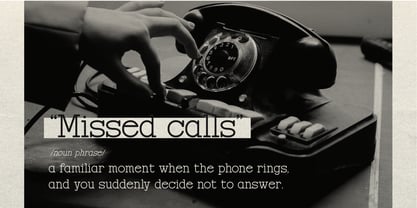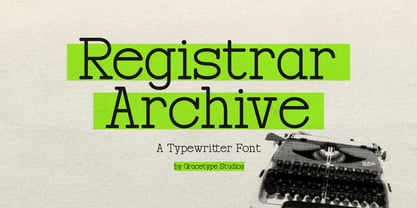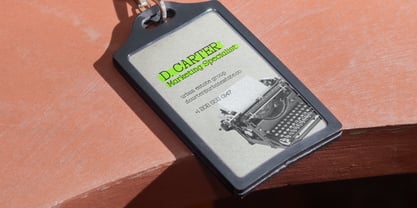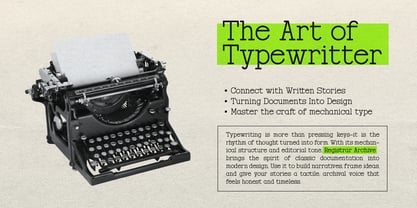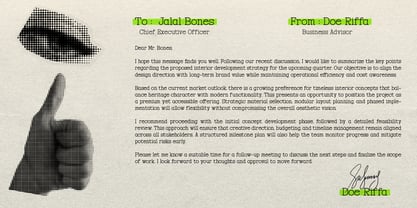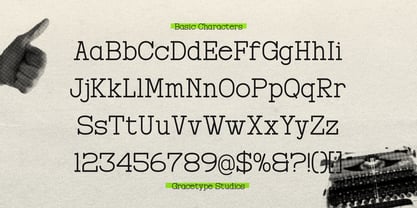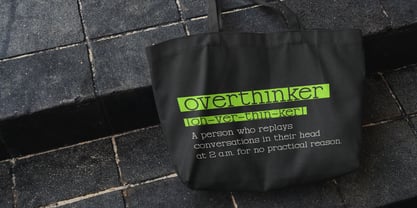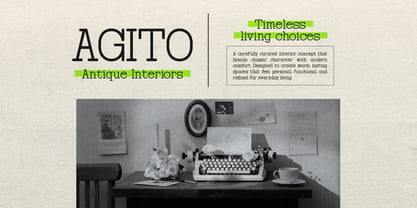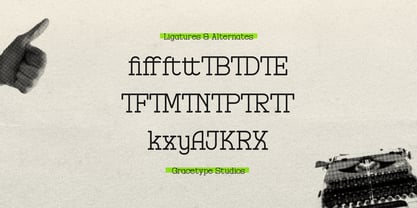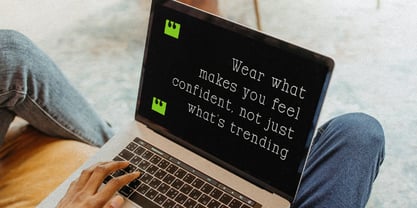
Registrar Archive
by Tini Fitriani
The Registrar Archive Font Family and published by Tini Fitriani. Registrar Archive contains 2 styles and family package options. More about this family
Registrar Archive | Typewriter Font, from Gracetypestudio, suitable for any projects such as: logos, branding projects, homeware designs, product packaging, mugs, quotes, posters, shopping bags, t-shirts, book covers, name card, invitation cards, greeting cards, label, photography, watermark, special events, and all your other lovely projects that need a Serif taste.